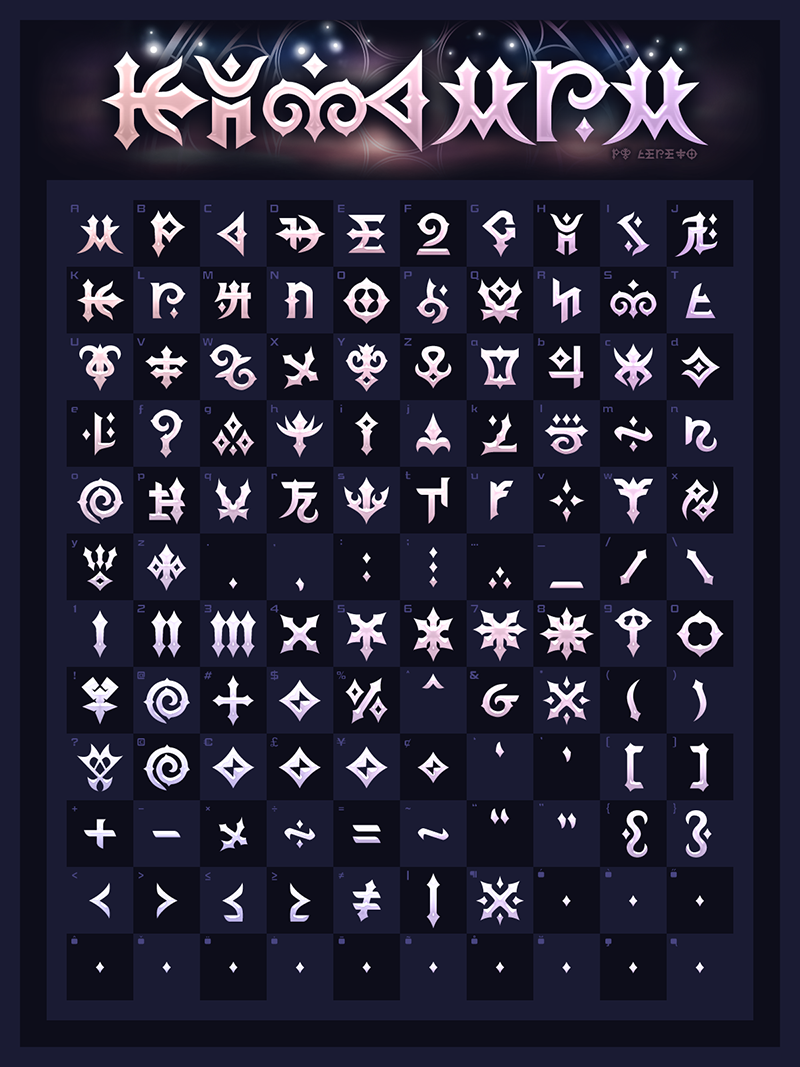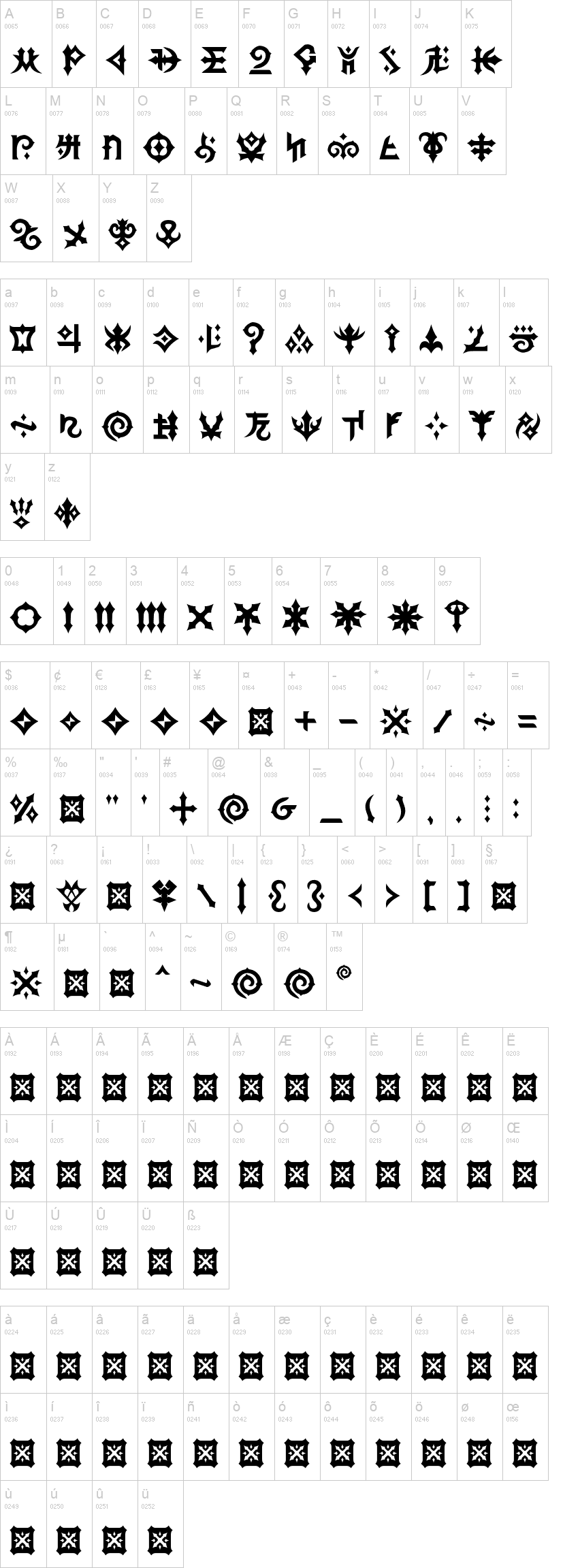
In comparison to similar fonts found online, characters in Re:Collection are recreated more faithfully, directly from the games whenever possible. They also have improved letter spacing (especially when setting spacing to metric) and have support for various languages including English, French, German, Italian, Spanish, Turkish, Polish, Norwegian, Swedish, Russian, Portuguese, Danish, Indonesian and many more latin-based languages.
KHScala Scala ad Caelum Font